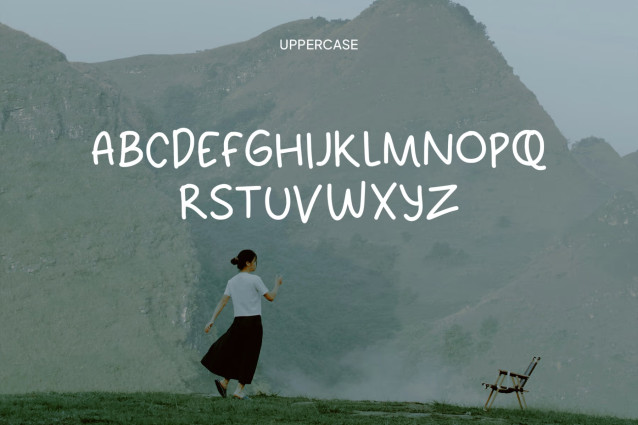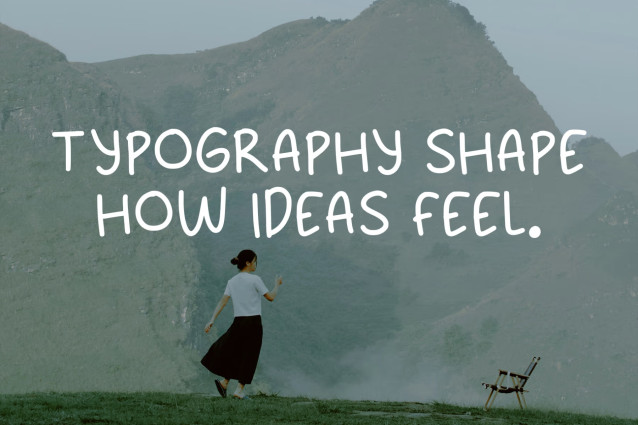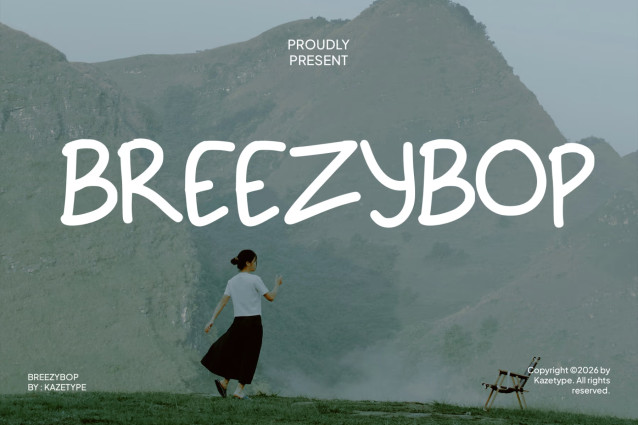
BreezyBop is a playful, hand-drawn style font designed to add instant charm to your designs. With its bouncy shapes and friendly character, it’s perfect for greeting cards, posters, social media graphics, branding, packaging, and any project that needs a fun and cheerful vibe.
Create eye-catching headlines, memorable logos, and cute typography with a font that feels light, breezy, and full of personality.